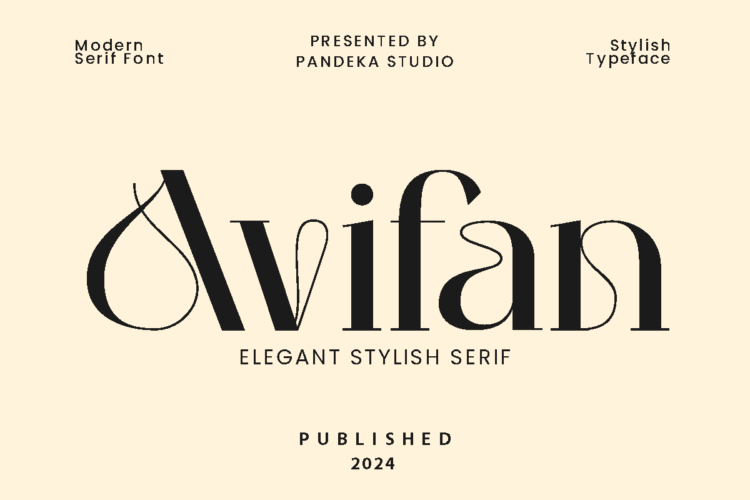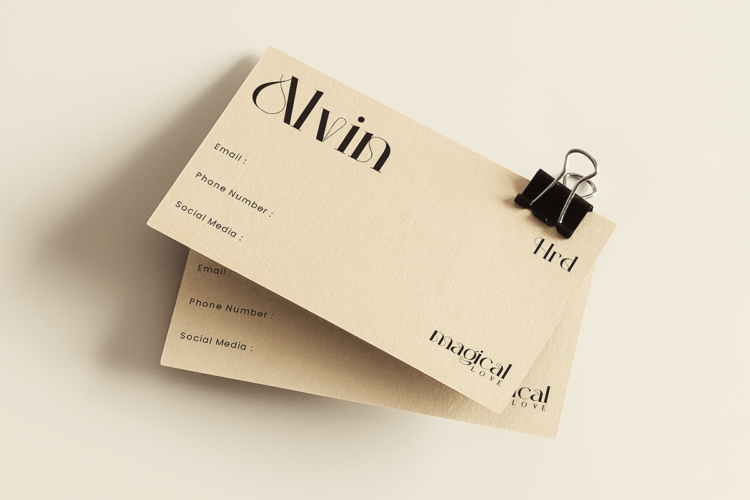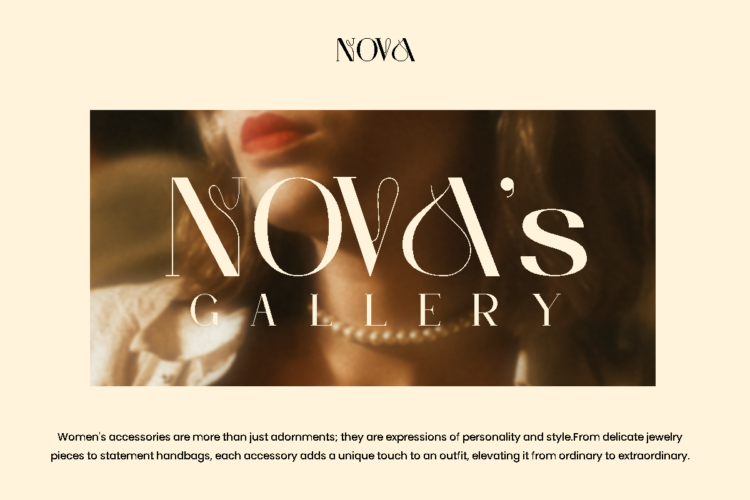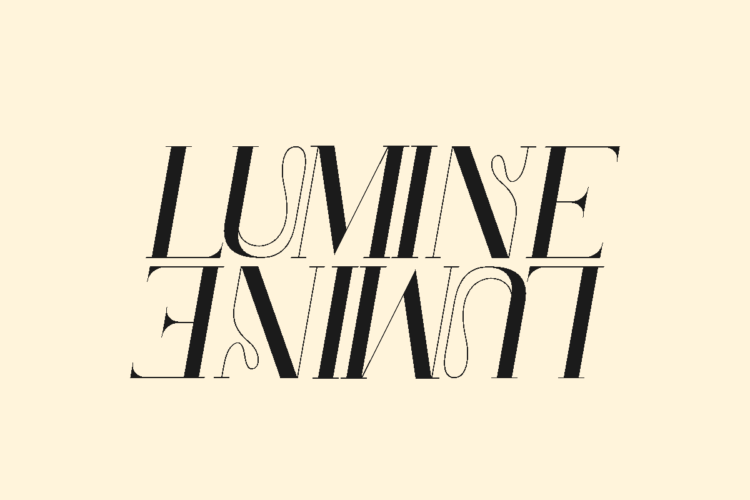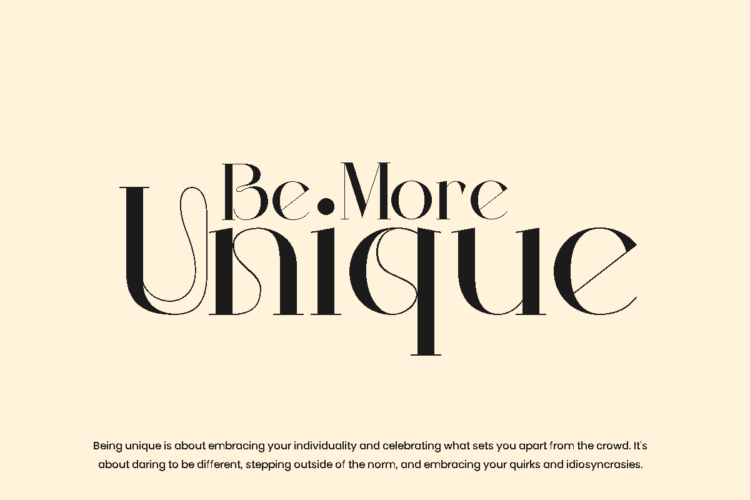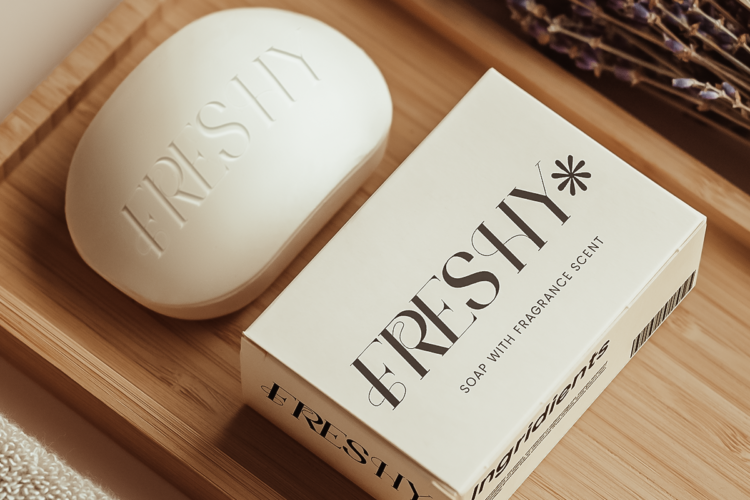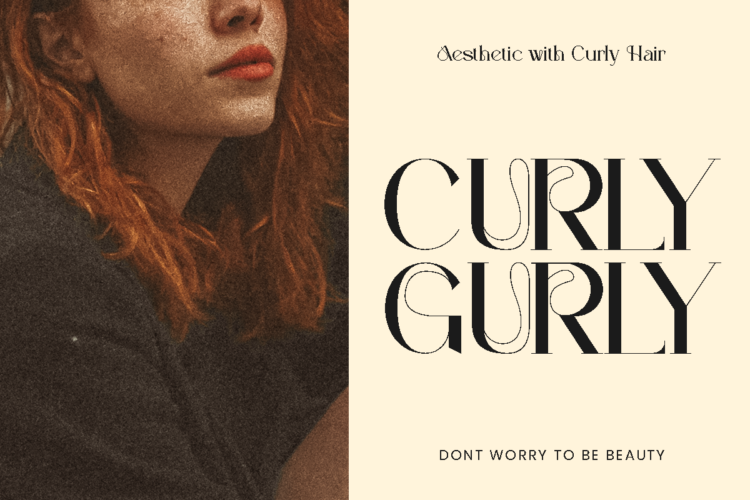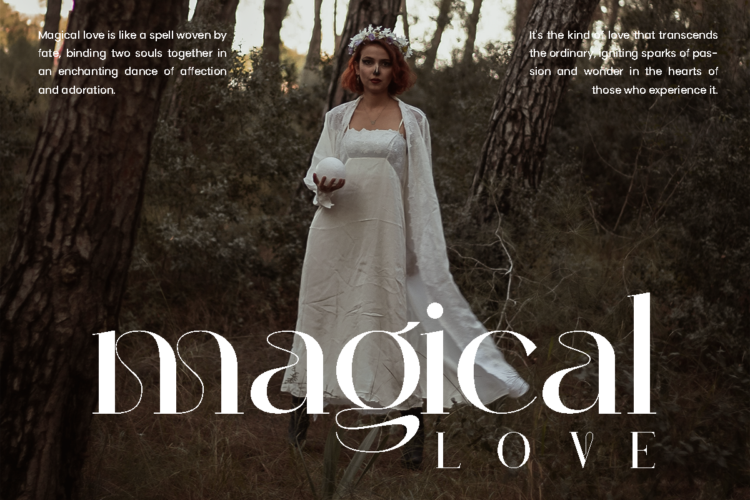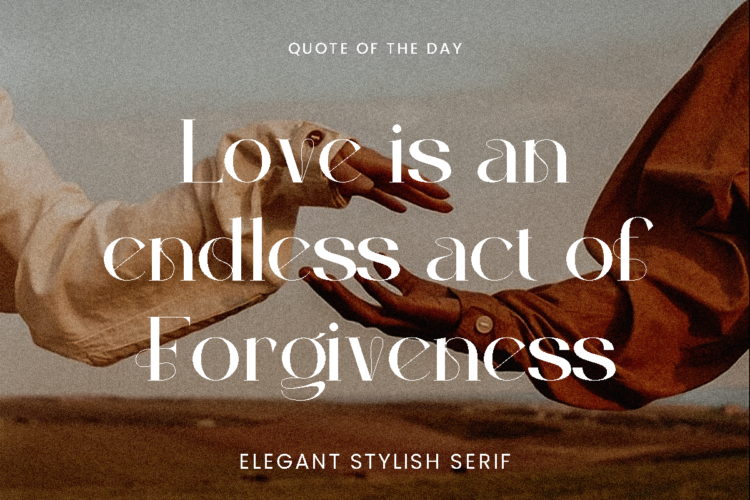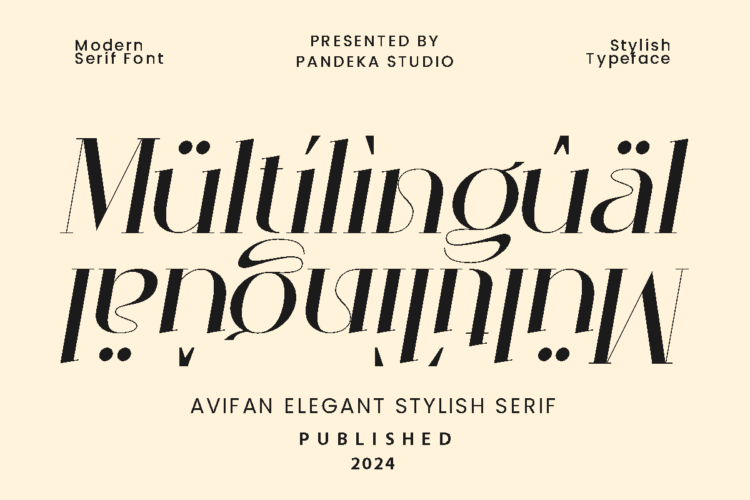
Avifan
Introducing the new Avifan Modern Ligature Serif!
Avifan is a modern, elegant and classy serif typeface, best used as a display for headings, logos, branding, magazines, product packaging and invitations. Avifan come with clean lines and smooth curves give any project an extra touch of class.
Avifan was built with OpenType features and includes ligatures, alternate, numbers, punctuation, and it also supports other languages.
• Unique Stylistic Alternates
Language Support: Danish, English, Estonian, Filipino, Finnish, French, Friulian, Galician, German, Gusii, Indonesian, Irish, Italian, Luxembourgish, Norwegian Bokmål, Norwegian Nynorsk, Nyankole, Oromo, Portuguese, Romansh, Rombo, Spanish, Swedish, Swiss-German, Uzbek (Latin)
Avifan – Elegant Serif Font